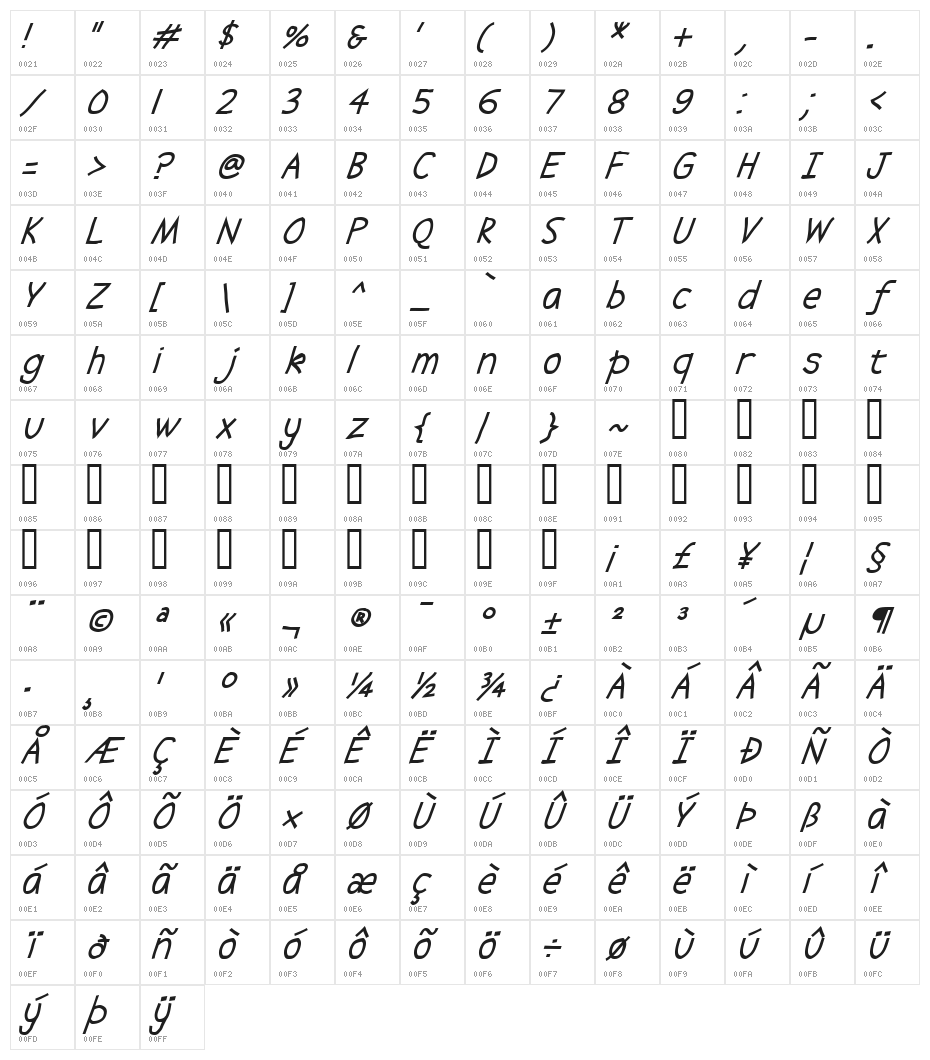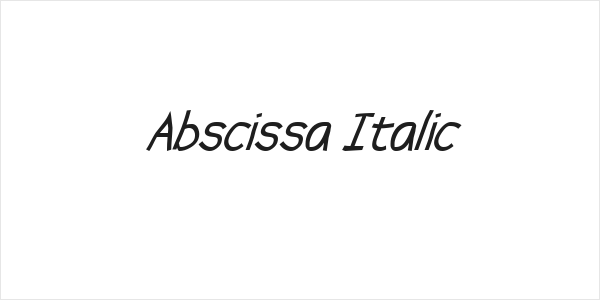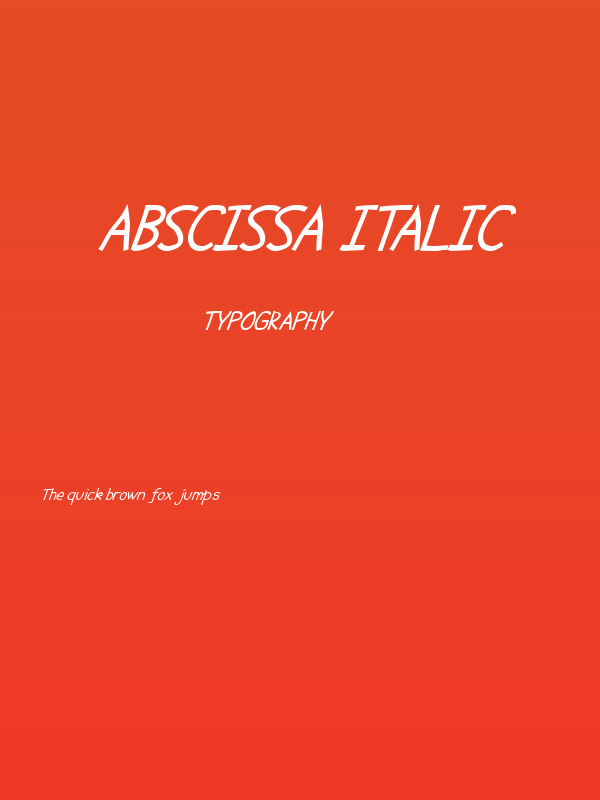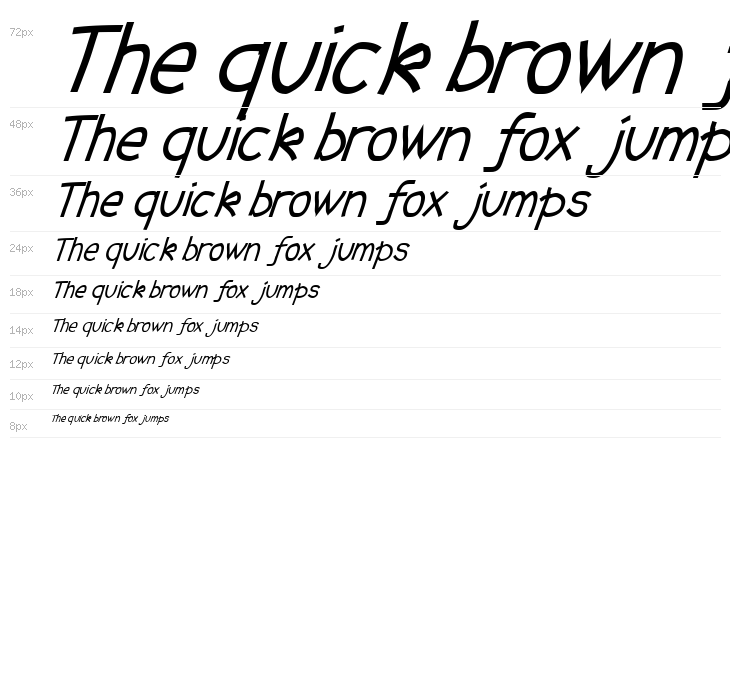
Abscissa Italic Font
Abscissa Italic Description
This font exhibits a dynamic and energetic style, characterized by its italicized, forward-leaning posture. The letters are crafted with smooth, flowing curves that convey a sense of motion and fluidity. The uppercase and lowercase letters maintain a consistent slant, enhancing the overall cohesiveness of the typeface. The numerals and special characters are designed to complement the alphabet, maintaining the same slanted, cursive-like appearance. This font's design is both modern and expressive, making it suitable for a variety of creative applications.
| Proposed Projects | Ideal for branding, advertising, and creative projects that require a touch of elegance and movement. |